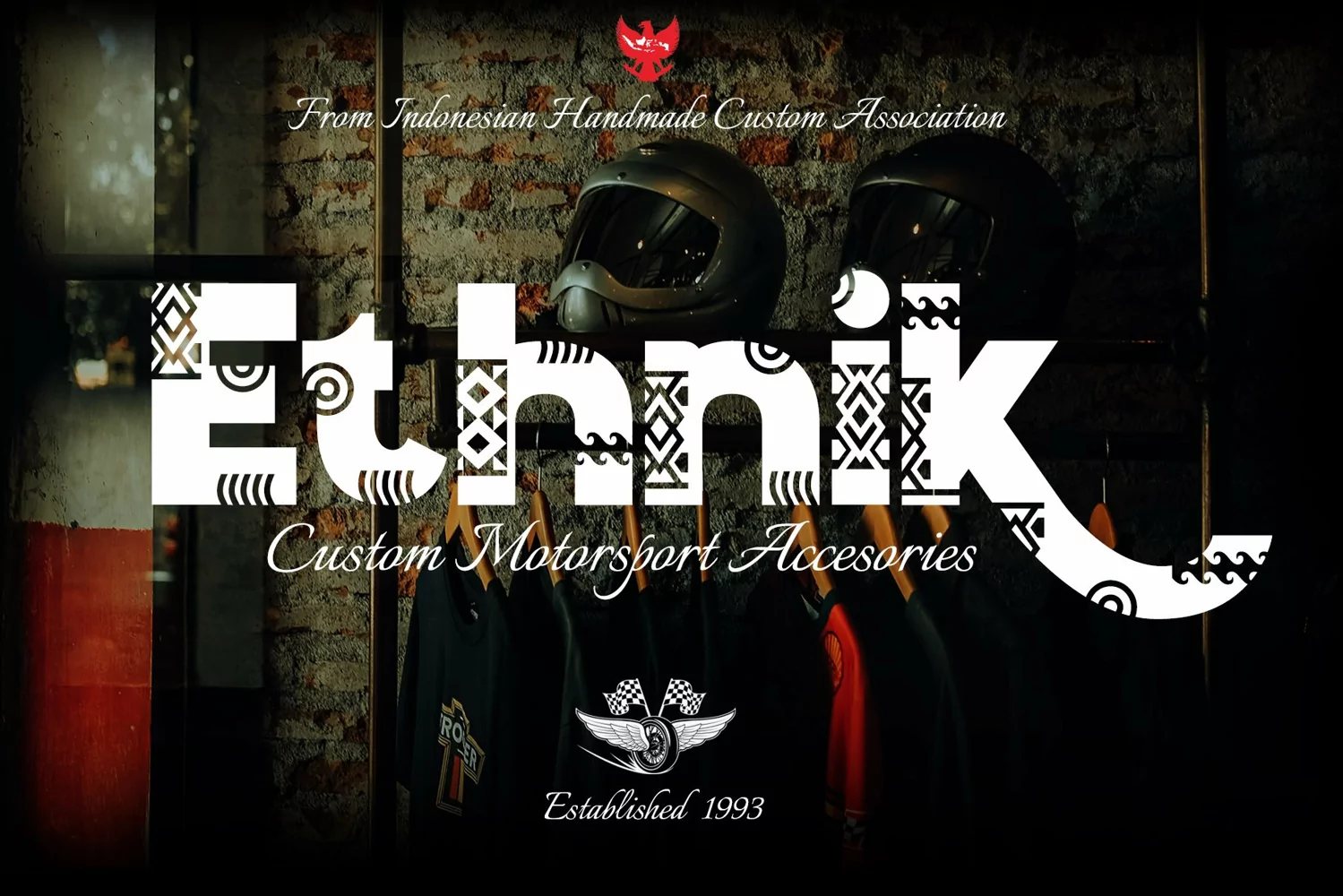
**Wakatoby Font**
This pair was inspired by the retro motorbike poster design that i saw on some coffee shop, It was crafted by hand specially to add natural handmade feeling in its brand identity than i make it clean with pentool.
Wakatoby font has 198 character set included
Wakatoby Font is very good looking in logo, labels, product packaging, invitations, advertising and others.